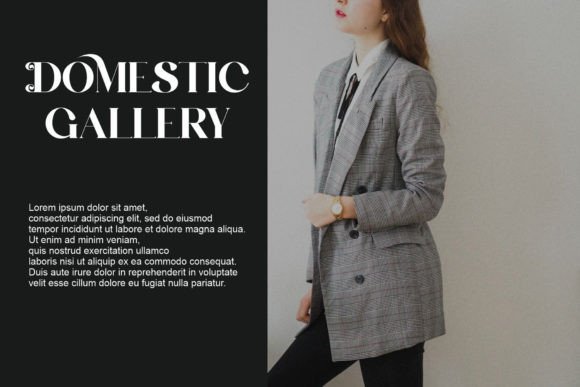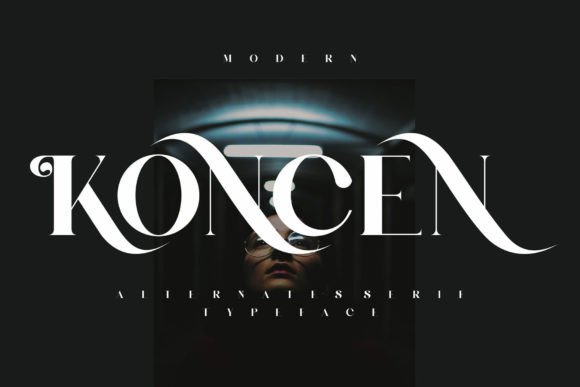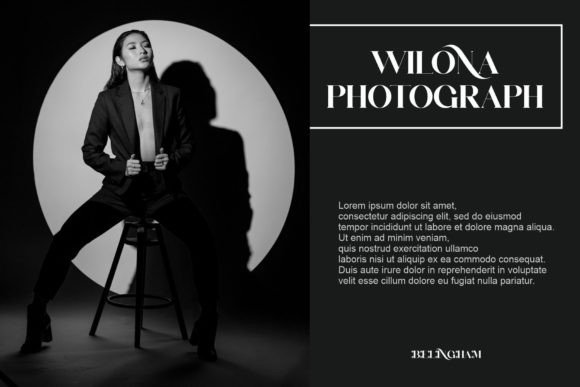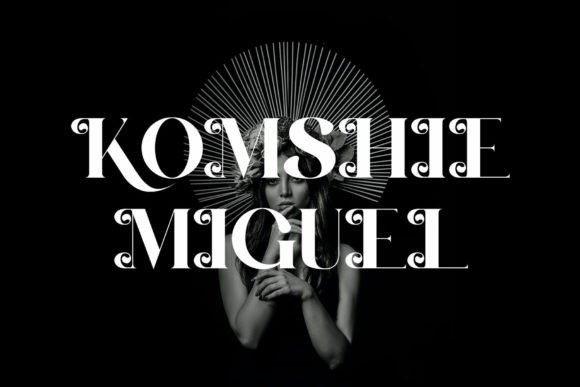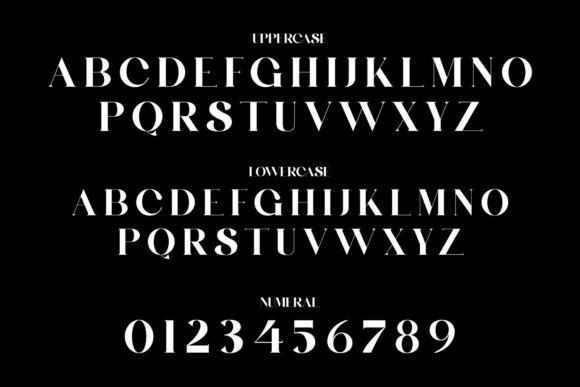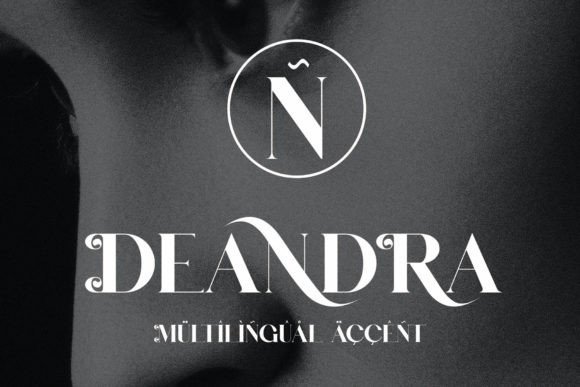
Belingham Font: Elevate Your Designs with Elegance and Class
In the world of typography, a font can make or break a design. For those seeking an elegant and classy serif typeface that exudes both modernity and nostalgia, look no further than the Belingham Font. This versatile font is perfect for a wide range of applications, from logos and magazines to social media and beyond. In this article, we’ll dive into the world of Belingham Font, exploring its unique characteristics, uses, and benefits for designers and crafters alike.
The Essence of Belingham Font
Belingham Font is a serif typeface that strikes the perfect balance between modern sophistication and classic charm. Its elegant lines, refined curves, and precise letter spacing make it an ideal choice for designs that demand a touch of luxury and refinement. Whether you’re working on a high-end brand identity, a fashion magazine, or a stylish website, Belingham Font is sure to impress.
Key Features of Belingham Font
- Elegant and Classy Design: Belingham Font boasts a sophisticated design that’s perfect for creating luxurious and refined visuals.
- Modern and Nostalgic: This font seamlessly blends modern sensibilities with nostalgic charm, making it versatile enough to suit a wide range of design applications.
- Serif Typeface: The classic serif design of Belingham Font adds a touch of tradition and sophistication to any design.
- Highly Versatile: From logos and branding to magazines, social media, and web design, Belingham Font is suitable for a wide range of applications.
Uses of Belingham Font
Belingham Font’s versatility makes it an excellent choice for various design projects. Here are some of the many ways you can use this elegant font:
- Logos and Branding: Create a lasting impression with a custom logo that exudes elegance and sophistication.
- Magazines and Editorials: Add a touch of luxury to your publications with Belingham Font’s refined and classic design.
- Social Media: Elevate your social media presence with eye-catching graphics and typography that showcase your brand’s personality.
- Web Design: Create a stunning website that reflects your brand’s values and aesthetic with Belingham Font’s elegant and modern design.
Belingham Font offers numerous benefits for designers and crafters looking to elevate their designs:
- Time-Saving: With Belingham Font, you can quickly create professional-looking designs without spending hours on typography.
- Consistency: This font ensures consistency across various design applications, making it easy to maintain a cohesive brand identity.
- Customization: Belingham Font’s versatility allows for endless customization options, ensuring your designs stand out from the crowd.
- Inspiration: This elegant font serves as a great inspiration for designers, sparking creativity and encouraging experimentation with new design ideas.
In conclusion, Belingham Font is an exceptional choice for designers and crafters seeking an elegant and classy serif typeface. Its unique blend of modernity and nostalgia makes it perfect for a wide range of design applications, from logos and magazines to social media and web design. With its versatility, customization options, and timeless design, Belingham Font is sure to become a staple in your design toolkit. So why wait? Discover the world of Belingham Font today and elevate your designs to new heights of elegance and sophistication.